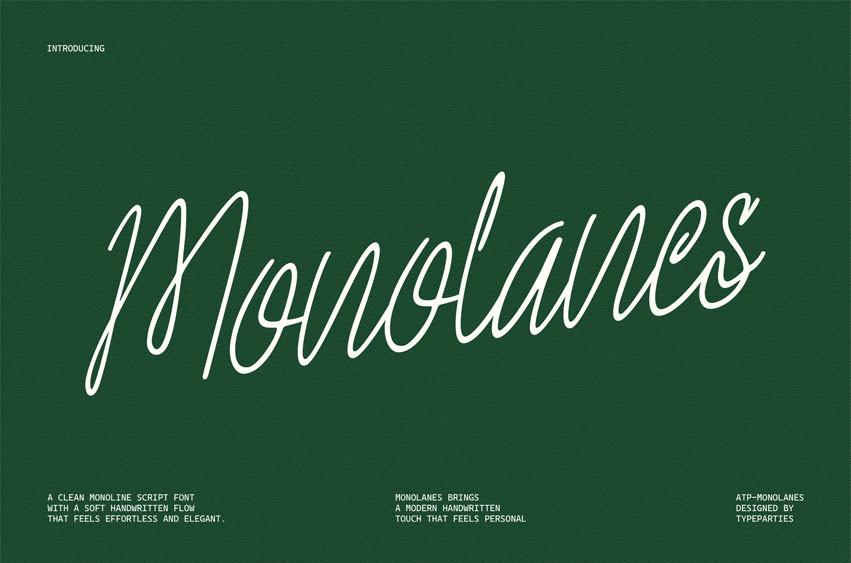
Monolanes Font
Monolanes Font is a clean monoline script font with a soft handwritten flow that feels effortless and elegant. Its thin consistent strokes create a smooth rhythm, making it ideal for logo design, branding projects, signature marks, product packaging, and aesthetic social media posts.
Monolanes brings a modern handwritten touch that feels personal, stylish, and easy to read, perfect for creators who want a refined yet natural look.